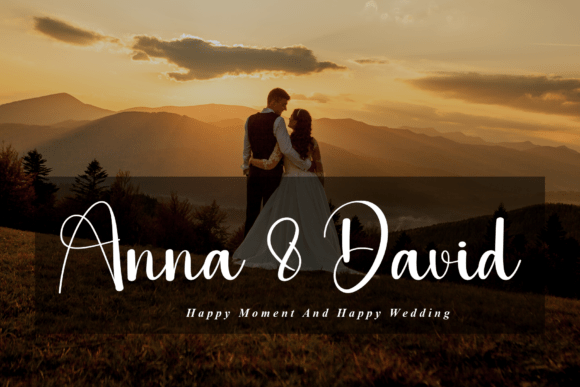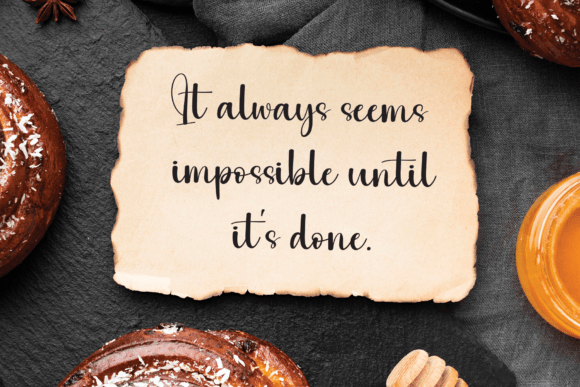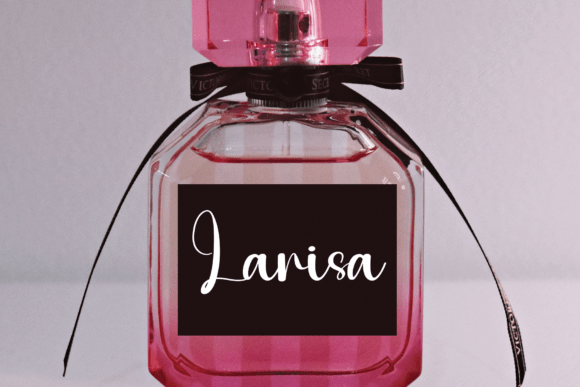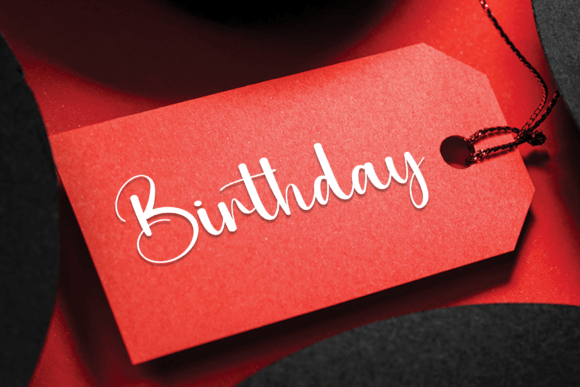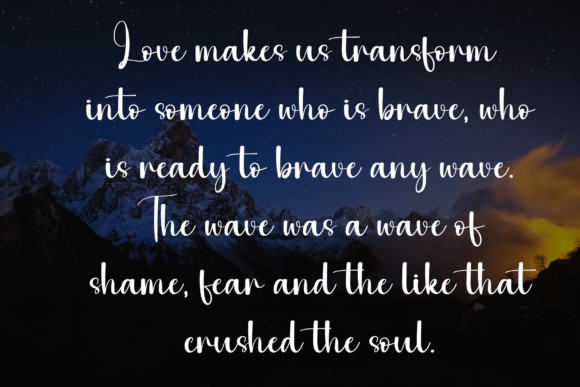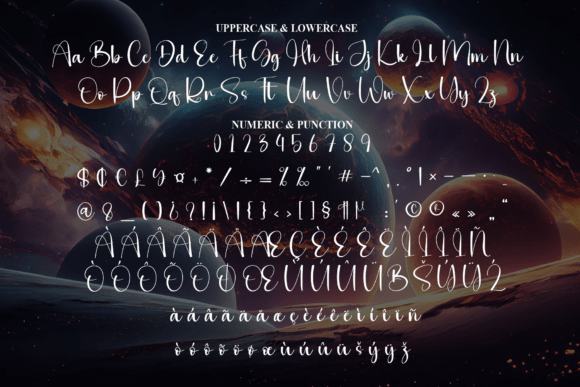
The Elegance of Galaxy Font: Elevate Your Designs with Sophistication
Have you ever been in the middle of a design project, and suddenly, you’re stuck on finding the perfect font? I recall a wedding invitation project where I struggled to find a font that exuded romance and luxury. That’s when I discovered the Galaxy Font, an elegant script font that has since become a staple in my design toolkit.
A Personal Review: What I Love and What to Consider
- 💫 Beautiful beginning and ending swashes that add a touch of sophistication to any design
- ✅ Elegant, flowing typeface perfect for creating romantic and luxurious visuals
- 🎨 Stylish curves and decorative alternates that make every word look effortlessly refined
- 📝 Perfect for wedding invitations, branding projects, social media graphics, and handwritten quotes
While Galaxy Font is an excellent choice for many design projects, there are a few things to consider:
- 🤔 The font’s elegance may not be suitable for very casual or playful designs
- ⚠️ Some users may find the font’s swashes and alternates challenging to work with, especially for those new to OpenType features
The Story Behind Galaxy Font: Designer Inspiration
Galaxy Font was inspired by the classic calligraphy of the past, combined with modern design sensibilities. The font’s creator aimed to craft a typeface that would evoke a sense of luxury, romance, and sophistication. Through its elegant curves and beautiful swashes, Galaxy Font brings a touch of high-end design to any project.
Q: What type of projects is Galaxy Font best suited for?
A: Galaxy Font is perfect for wedding invitations, branding projects, social media graphics, and handwritten quotes, where a touch of elegance and sophistication is desired.
Q: Is Galaxy Font suitable for body text?
A: While Galaxy Font is an elegant and refined typeface, it’s best suited for headlines, titles, and short text passages. For body text, a more legible font may be a better choice.